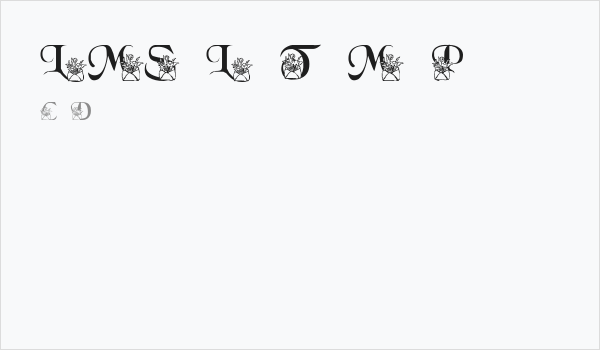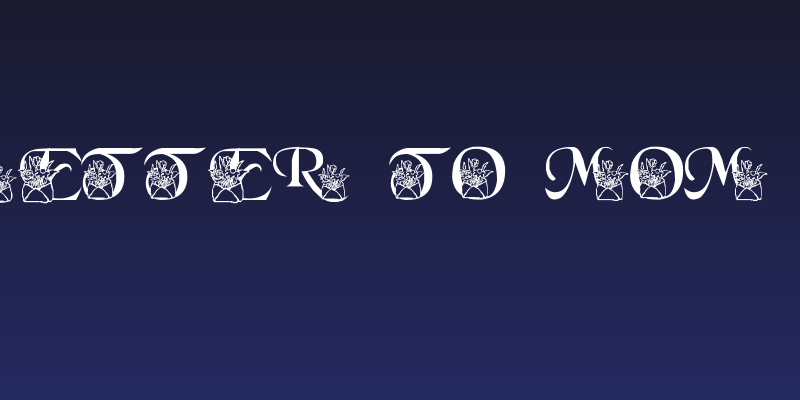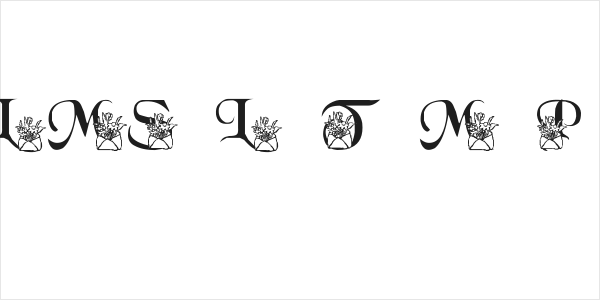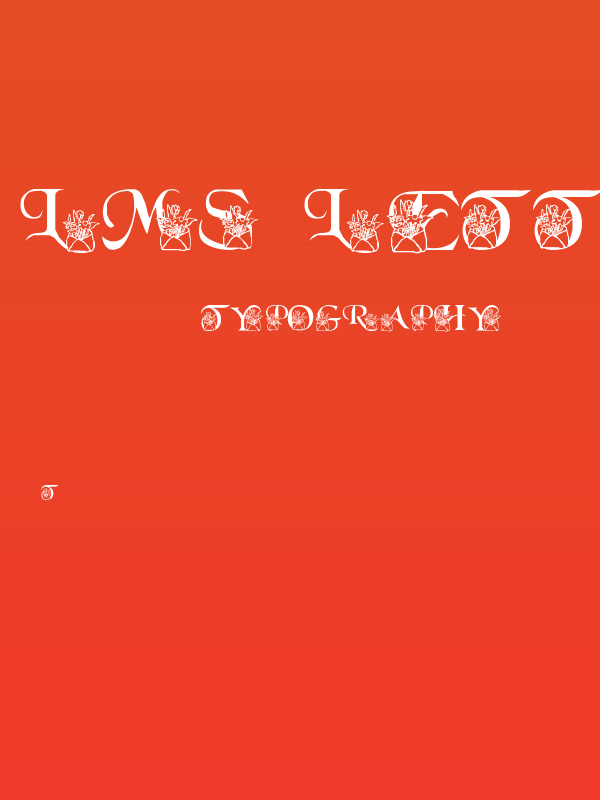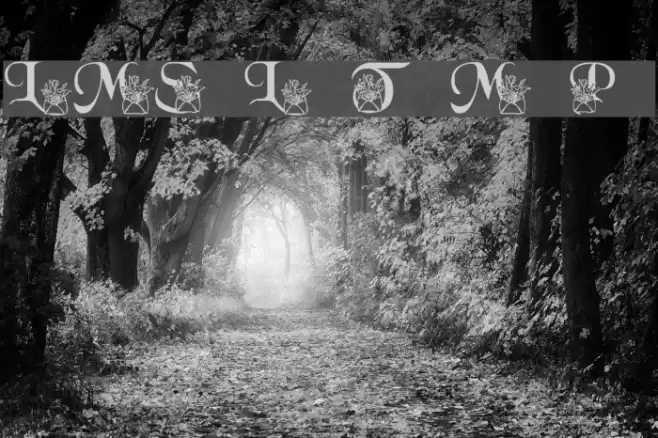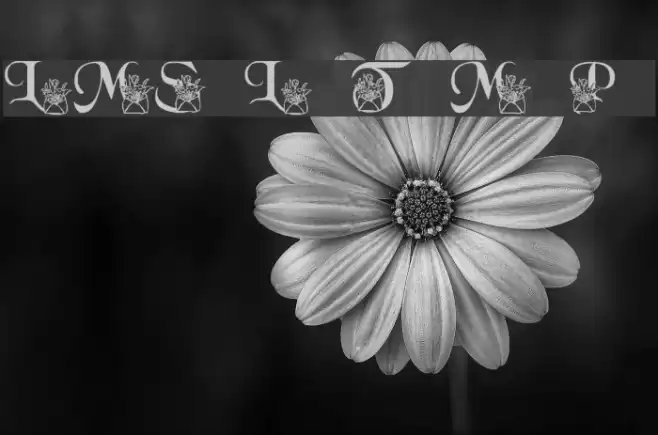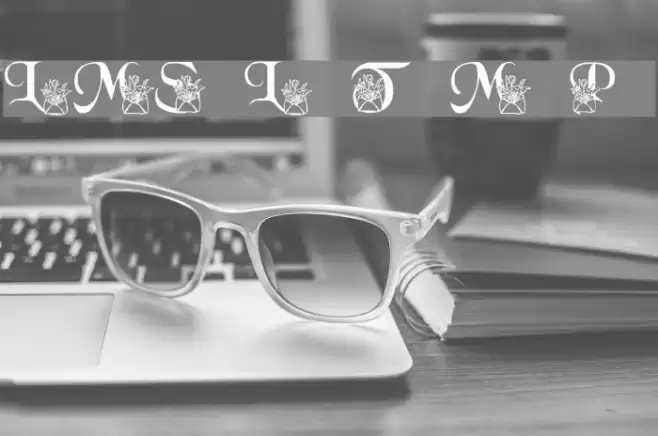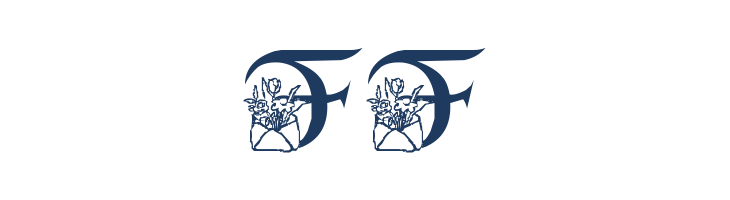
LMS Letter To Mom Part 2 Font
This font features a decorative style with intricate floral embellishments integrated into each character. The uppercase letters are bold and striking, with a unique blend of classic serif elements and modern decorative flair. Each letter is adorned with a floral motif, adding an artistic and elegant touch. The overall design is highly detailed, making it suitable for projects that require a sophisticated and ornamental appearance. The font's distinctiveness lies in its ability to combine readability with artistic expression, making it ideal for creative and decorative uses.
| Proposed Projects | Ideal for wedding invitations, greeting cards, branding for luxury products, and decorative headings. |